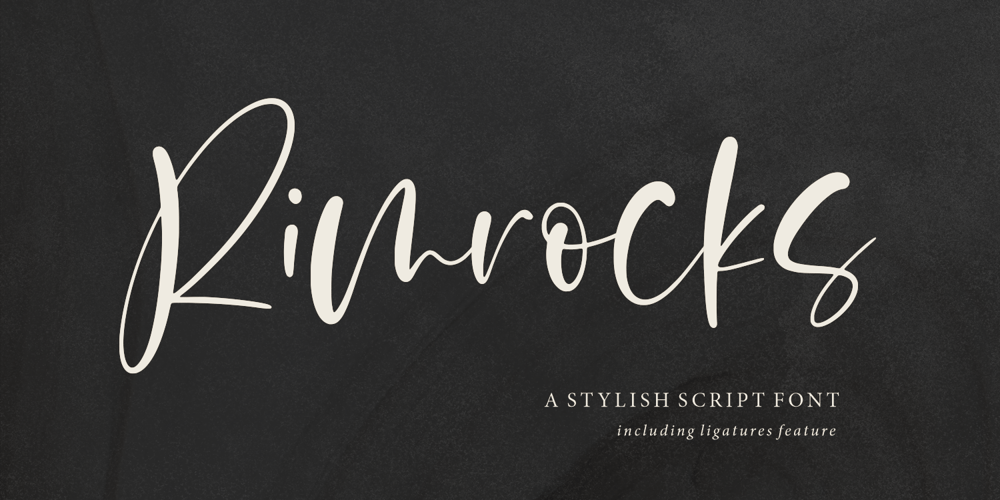
Rimrocks Font Family was designed by Andre Bima Falah Rabbani and published by Atharuah Studios. Rimrocks contains 1 styles and family package options. Introducing Rimrocks; A stylish script font! Rimrocks is a carefully designed and completely hand-drawn font that has different dimensions in each letter creating a stunningly realistic look.Rimrocks also has several ligatures to add an organic feel to every word that is displayed. It’s the perfect choice for stylish branding & logo projects, product packaging, handwritten quotes, editorial design, and more.What’s Included:Rimrocks comes with a single font file that includes uppercase, lowercase, numbers, punctuation, and multilingual support.That’s it! I hope you enjoy it.You can also say hello to me on Instagram: https://www.instagram.com/atharuah_Thank You!